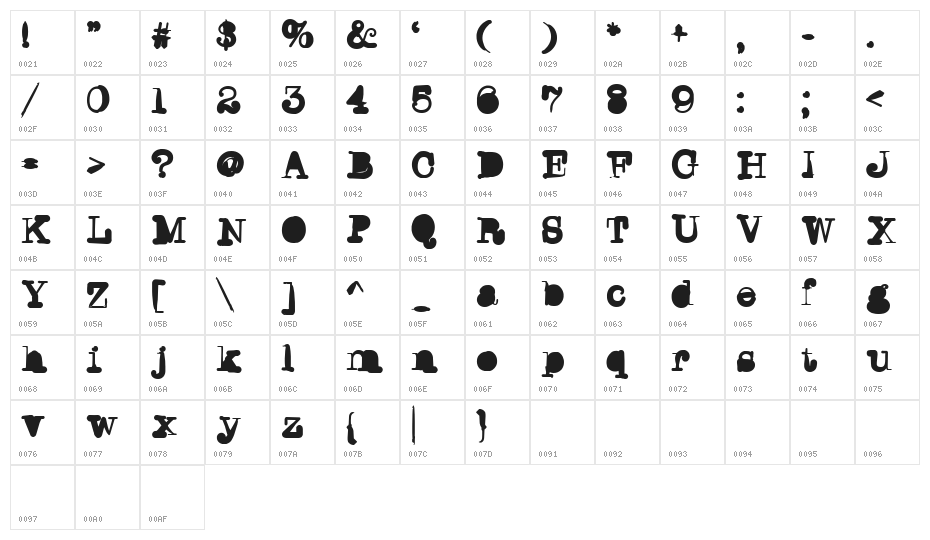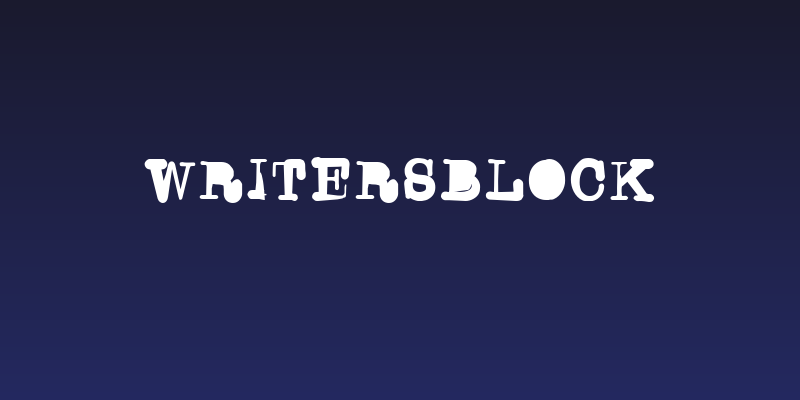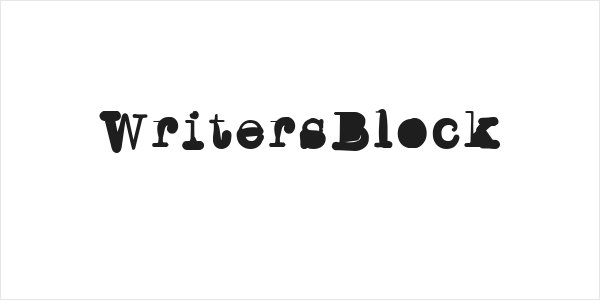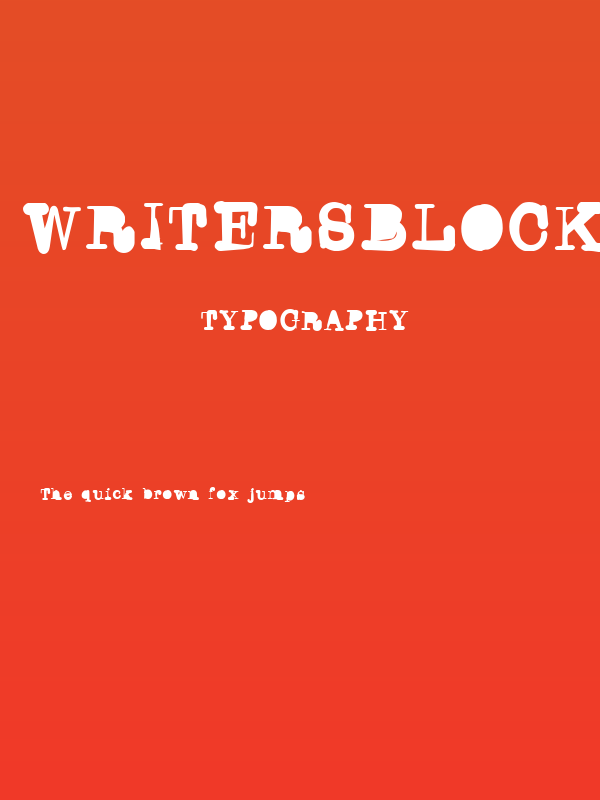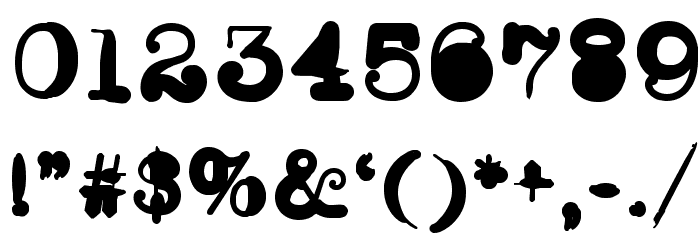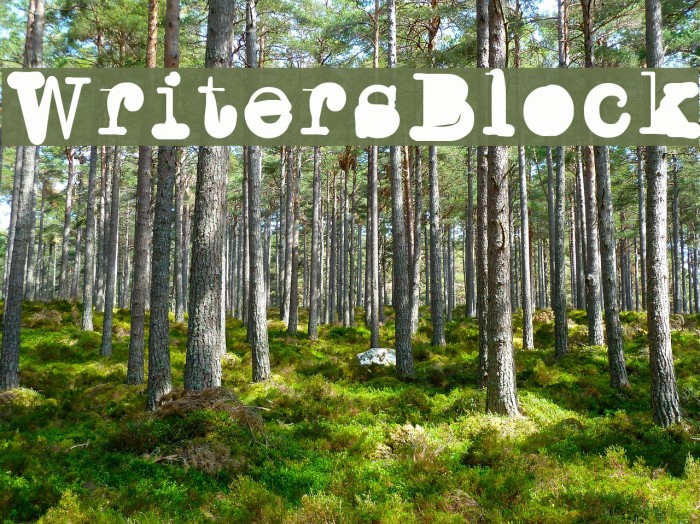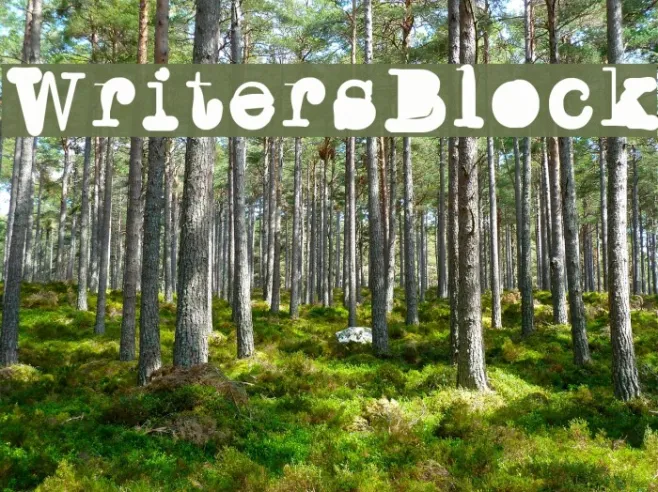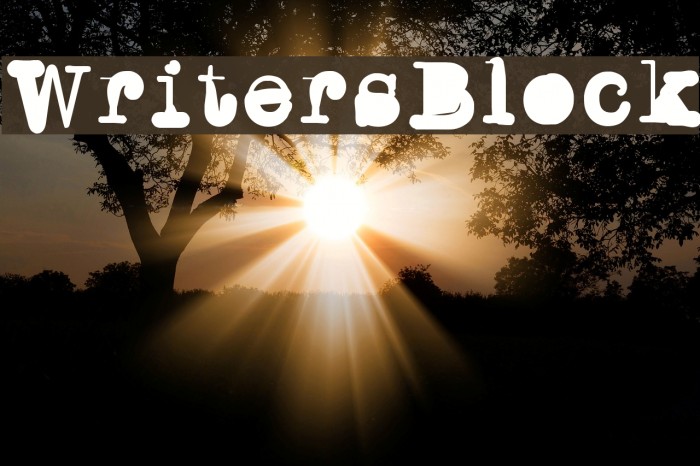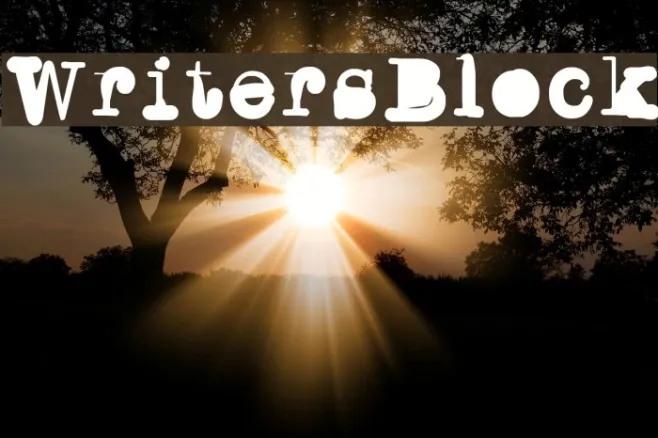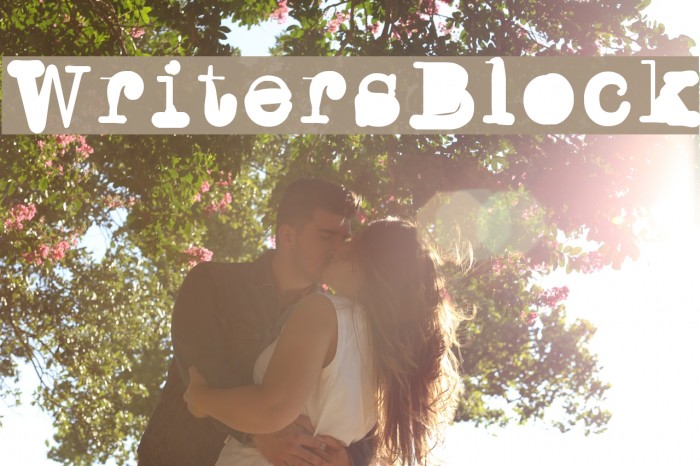
WritersBlock Font
WritersBlock Description
This font features a bold and playful design with exaggerated serifs and a distinct, whimsical style. The characters are heavily weighted, giving a strong presence on the page. Each letter has a unique, almost cartoonish quality, with varying stroke thickness that adds to its quirky charm. The font maintains a consistent baseline, yet the varying heights and widths of the characters create a dynamic and lively appearance. The numbers and special characters follow the same bold and playful theme, making them stand out. This font is perfect for projects that require a fun and eye-catching typeface.
| Proposed Projects | Ideal for children's books, playful branding, posters, and creative invitations. |